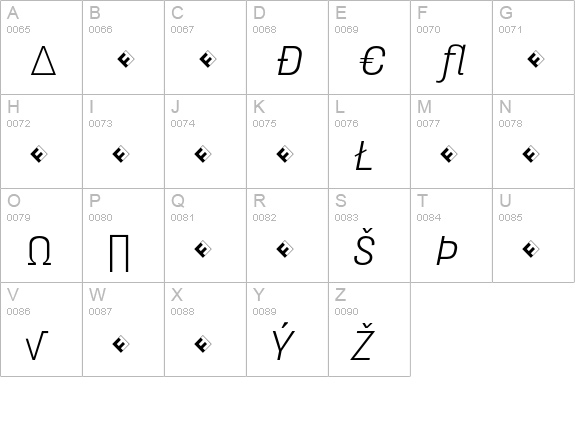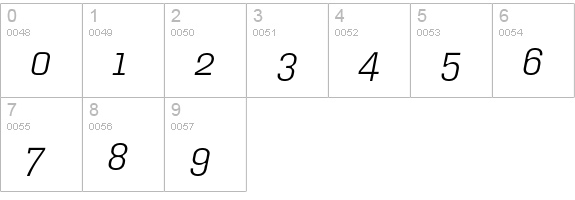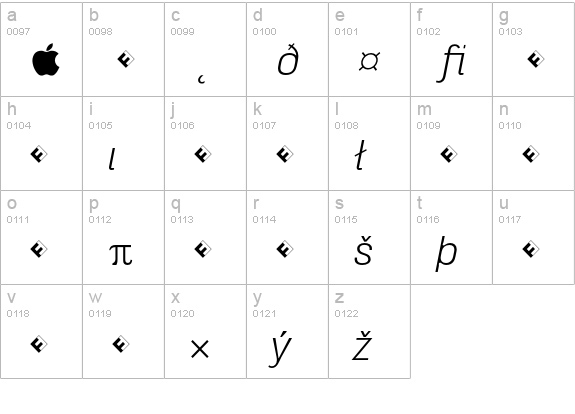
HydraText-LightItalicExpert font is a sleek and elegant typeface that exudes sophistication and modernity. Its delicate and slanted italic design adds a touch of flair to any project, making it perfect for headings, quotes, and other design elements that require a touch of finesse. This font is not only stylish but also versatile, making it suitable for a wide range of design projects. Whether you're creating a branding campaign, designing a website, or working on a print project, HydraText-LightItalicExpert font will elevate your work to the next level. Best of all, this font is available for free download at FontsMarket.com. Simply visit the website and add HydraText-LightItalicExpert to your font collection without spending a penny. Don't miss out on this fantastic opportunity to enhance your designs with this stunning typeface.